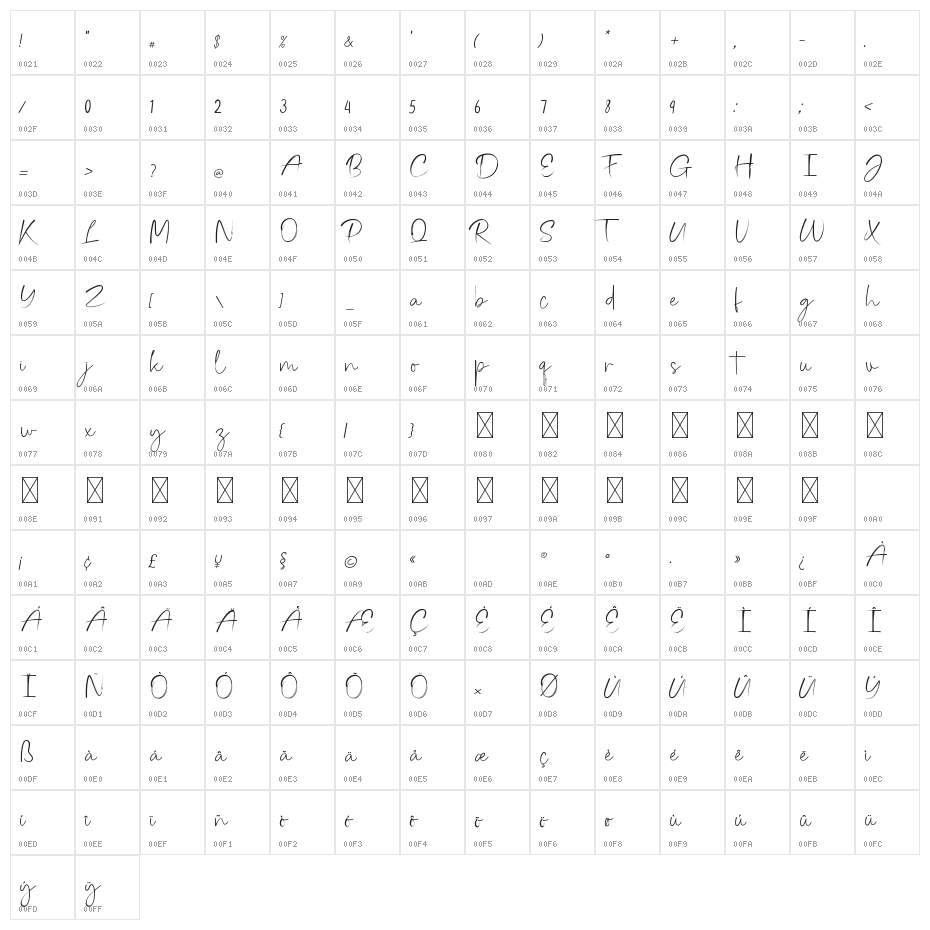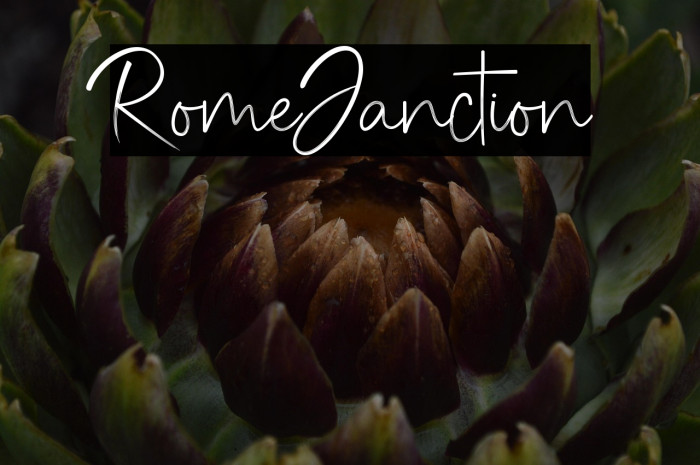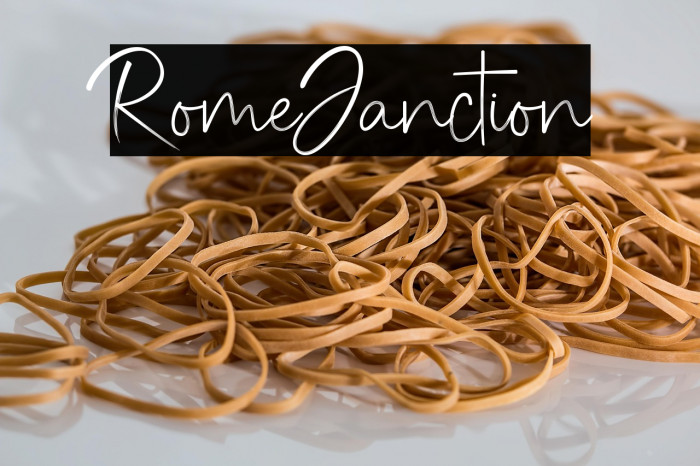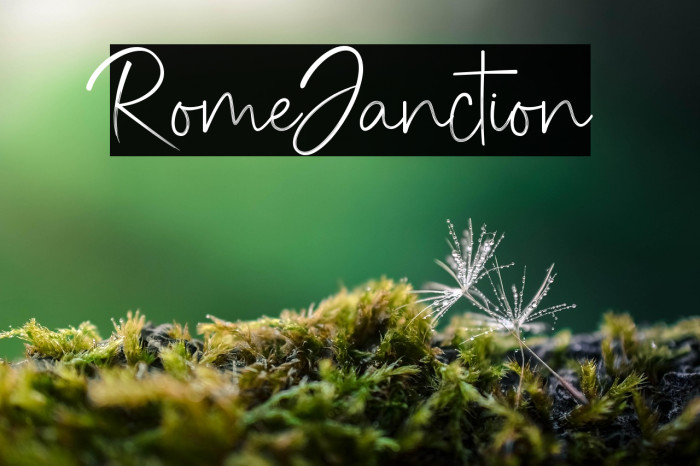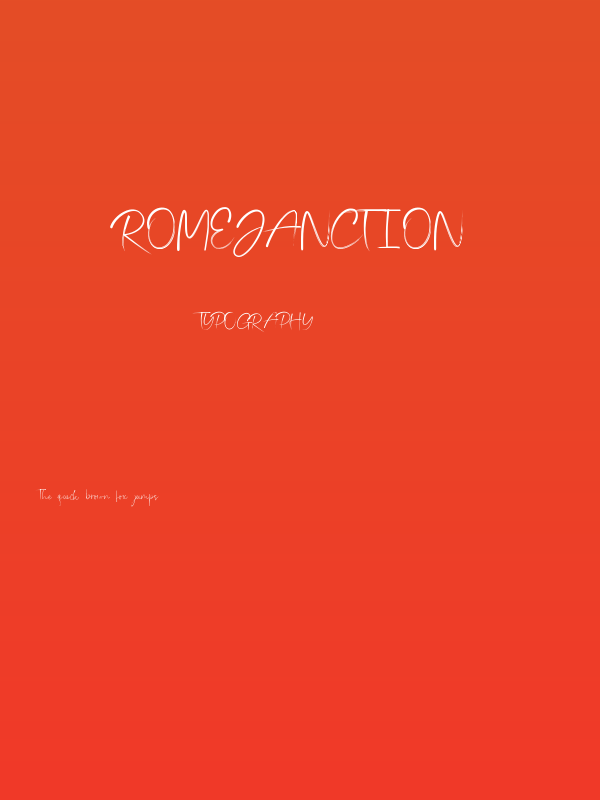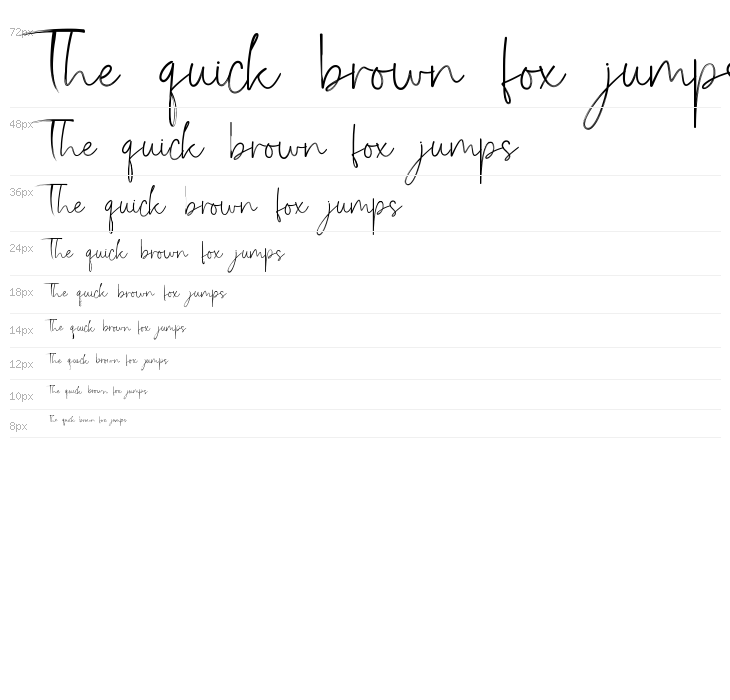
RomeJanction Font
RomeJanction Description
This font exudes a modern and elegant script style, characterized by its flowing, cursive letterforms. The uppercase letters are bold and sweeping, with a dynamic flair that adds a sense of movement. The lowercase letters maintain a consistent fluidity, offering a harmonious balance between each character. Numbers are clear and legible, while special characters retain the same graceful style. The overall design is sophisticated, making it suitable for projects that require a touch of elegance and personality.
| Overall Style | Modern, Elegant |
| Proposed Projects | Ideal for wedding invitations, elegant branding, personal stationery, and artistic projects that require a touch of sophistication. |